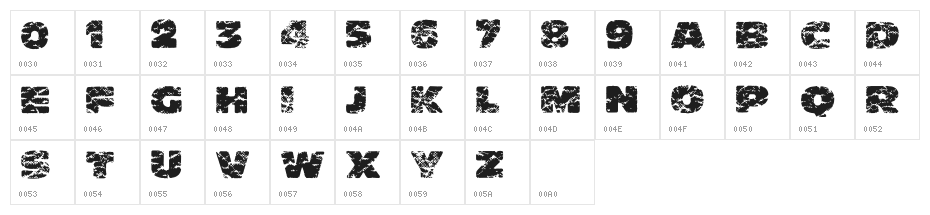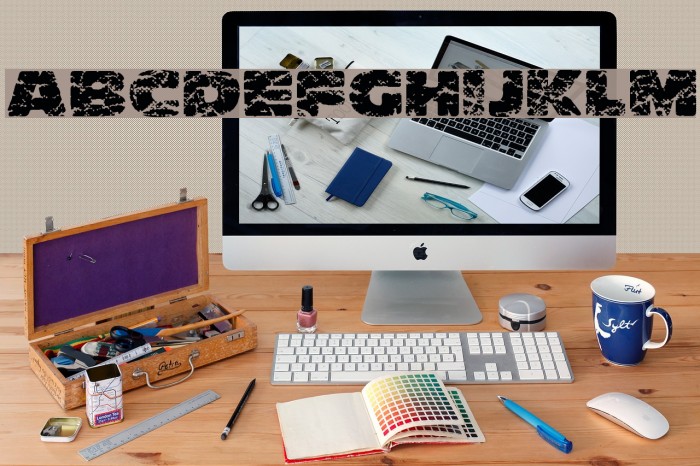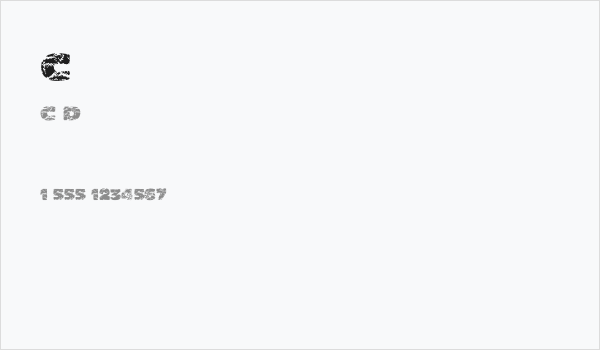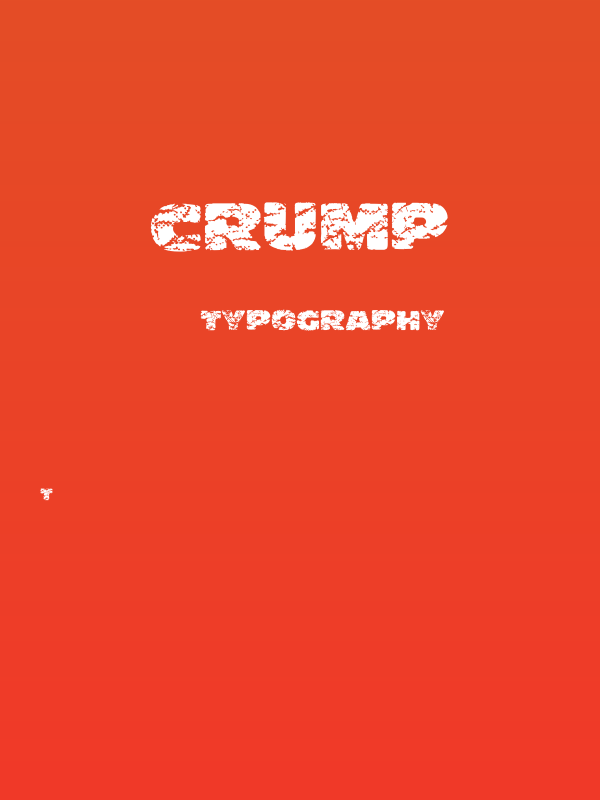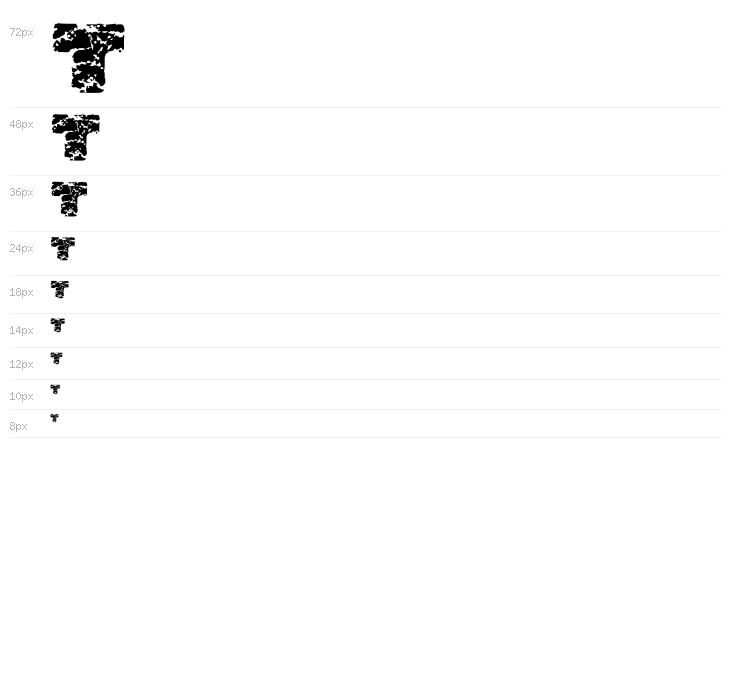
Crump Font
Crump Description
This font features a bold, distressed style with a rough, textured appearance. The characters are heavily weathered, giving them a grunge or vintage look. The uppercase letters are uniform in height, while the numbers and special characters maintain the same distressed aesthetic. The font's unique texture makes it stand out, adding a rugged and edgy feel to any design. It's perfect for projects that require a bold statement or an urban, gritty vibe. The overall style is both eye-catching and distinctive, making it suitable for creative and artistic applications.
| Overall Style | Vintage, Grunge |
| Proposed Projects | Ideal for posters, album covers, urban-themed designs, and branding that requires a gritty, vintage look. |